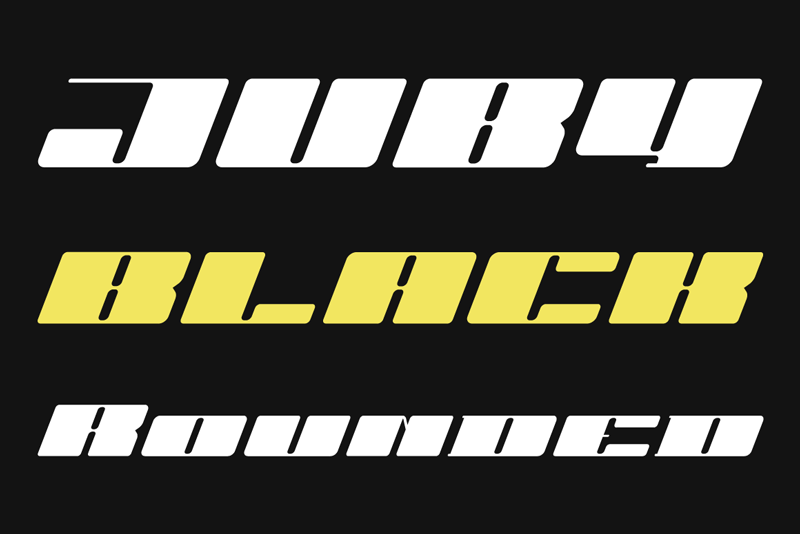
Heavy, visible and distinctive display font, rounded brother of the JUBY Font.
Designed especially for display purposes. Can be used successfully in posters, headlines, visual identities, and everything needs to stand out.